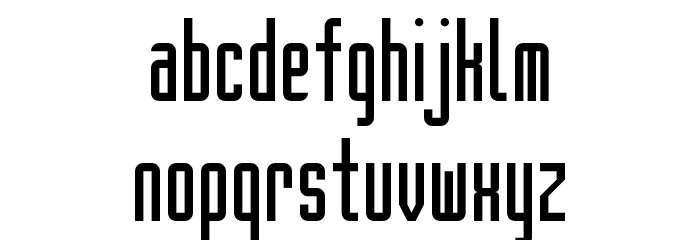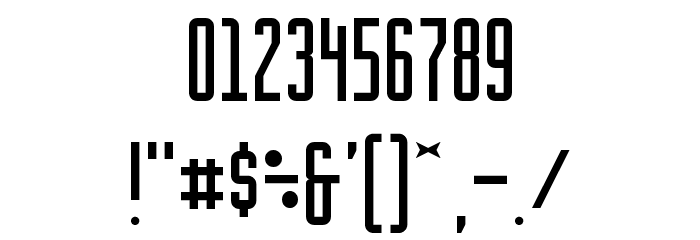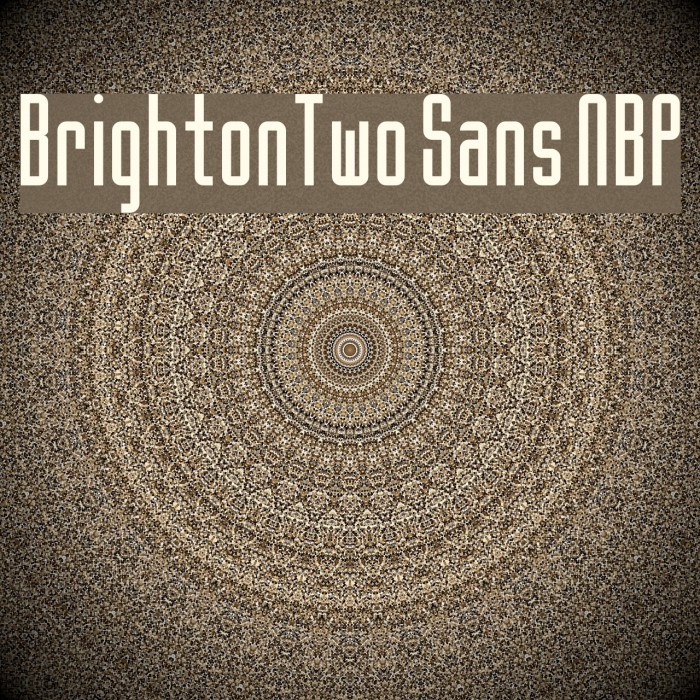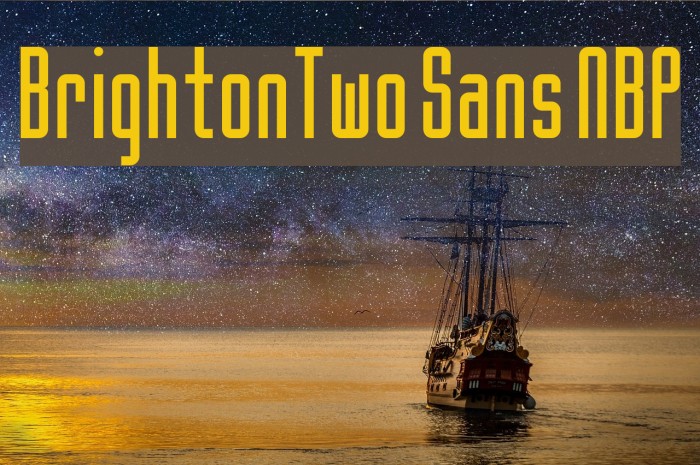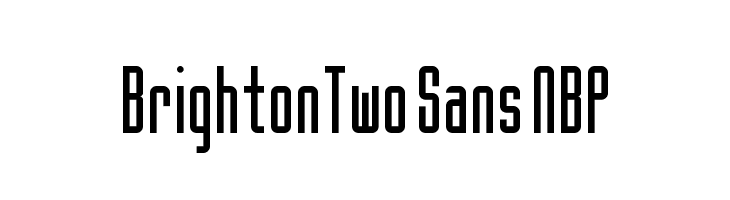
BrightonTwo Sans NBP Font
This font features a modern, geometric design with a strong emphasis on verticality. The characters are tall and narrow, giving a condensed appearance that is both sleek and stylish. The uppercase letters are bold and assertive, while the lowercase letters maintain a consistent height and width, ensuring readability. The numerals are distinct and clear, matching the overall aesthetic of the font. Special characters are designed with the same geometric precision, making them suitable for a variety of uses. The font's clean lines and uniform stroke width contribute to its contemporary feel, making it ideal for digital and print media.
A modern, geometric font with tall, narrow characters and a sleek, condensed style.